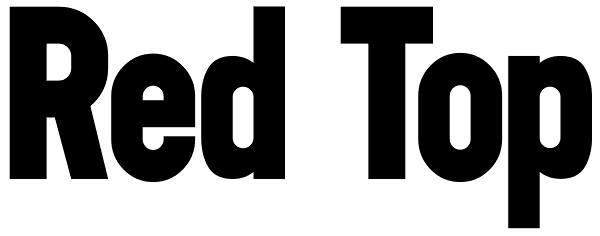
Red Top
Red Top is the UK name for the tabloid press, the scandal sheets of journalism, scourge of royalty, errant politicians and public figures, and celebrants of sex, celebrity and astrology: all human life is there as they used to say in the now defunct...